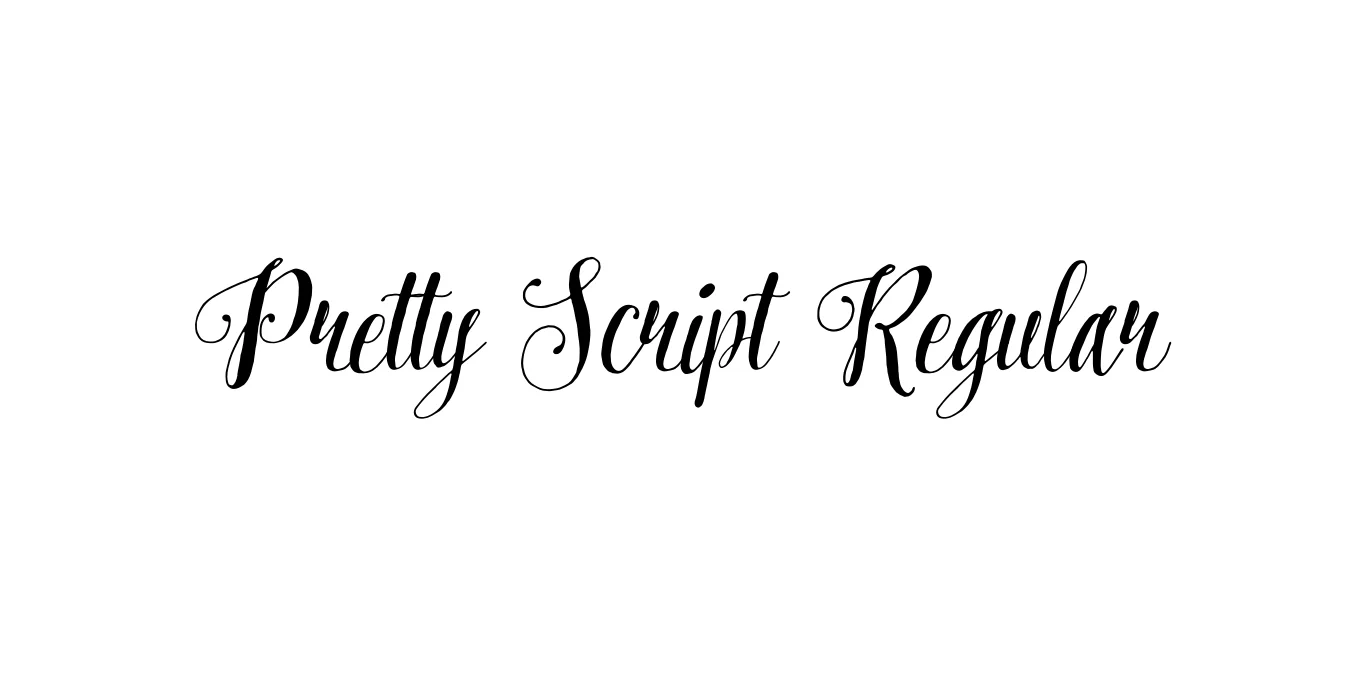
Pretty Script Regular
Pretty Script Regular is an elegant and fluid hand-drawn calligraphy font designed to bring a touch of sophistication to any creative project. Characterized by its sweeping ascenders and delicate descenders, the typeface mimics the natural flow of traditional ink-based penmanship. Each character is meticulously crafted to ensure seamless connections, making it an ideal choice for projects that require a high-end, personalized feel.
Developed with modern design needs in mind, this typeface includes a comprehensive set of glyphs and stylistic alternates. Since its release, it has become a favorite among graphic designers for its versatility in both digital and print media. Whether used for high-fashion branding or intimate event stationery, Pretty Script Regular offers a timeless aesthetic that bridges the gap between classic elegance and contemporary style.
Pretty Script Regular Best Uses
Exquisite for invitations, save-the-date cards, and place settings.
Provides a unique and high-end feel for logos in the fashion and beauty industry.
Adds a personal, organic touch to inspirational quotes and lifestyle posts.
Enhances the luxury appeal of boutique products and gift boxes.